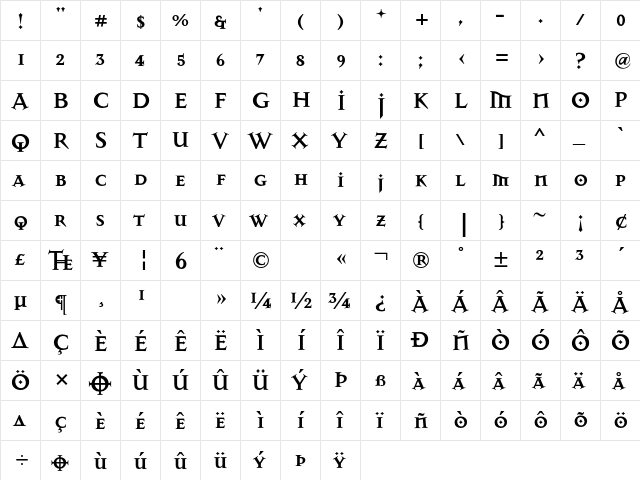
MasonAlternate Bold
Design Context for MasonAlternate Typeface
MasonAlternate offers clean, dependable letterforms without strong stylistic allegiance, making it a practical choice for designers who need flexibility. The heavy weight commands attention and anchors typographic hierarchies.
Pro Tip: Use MasonAlternate in both headline and body roles to test its range before committing to a single application.